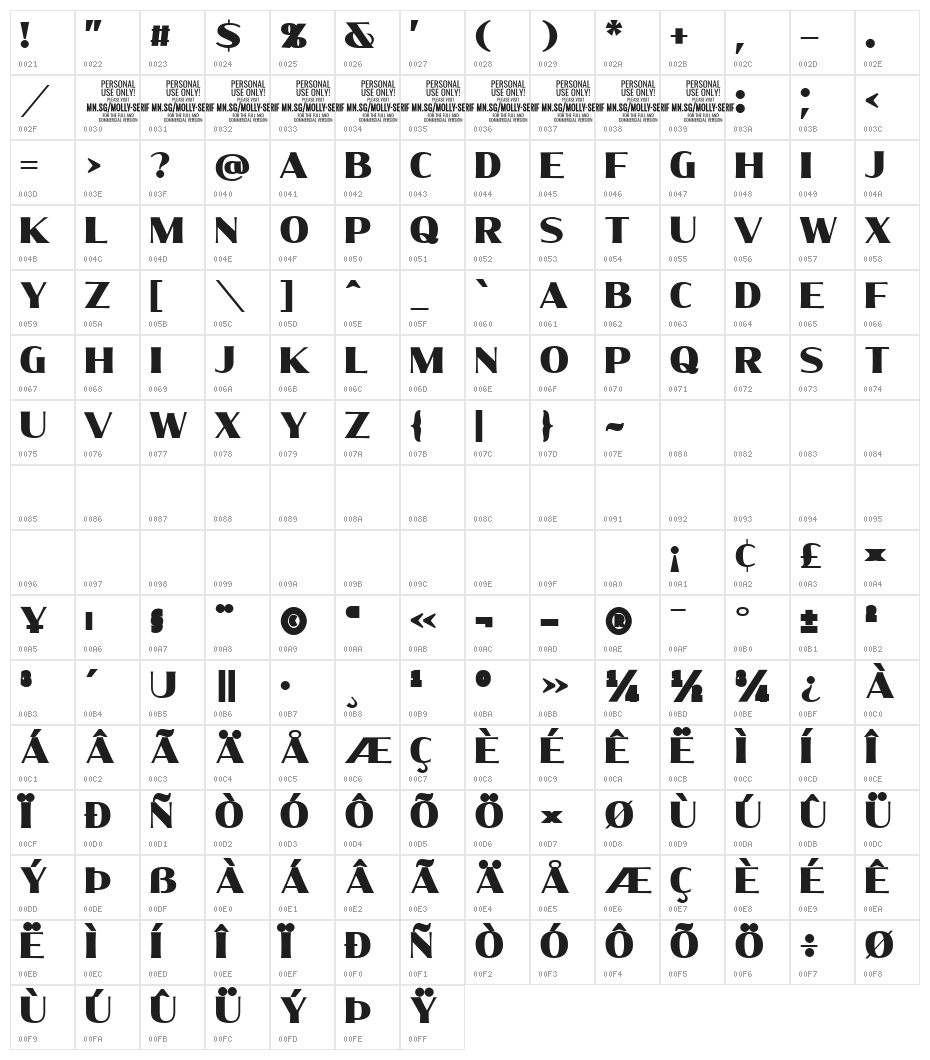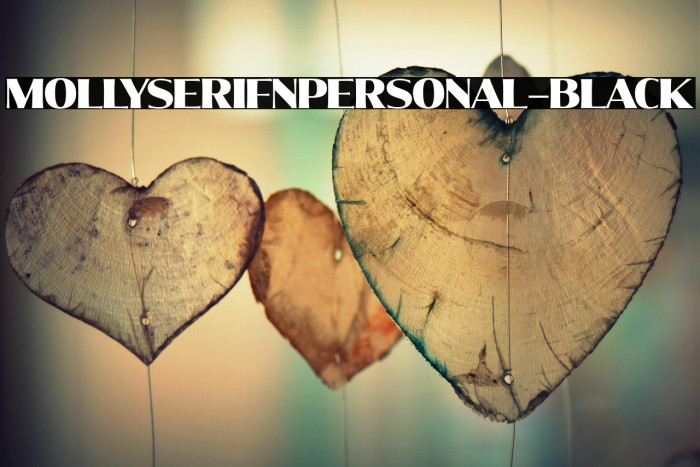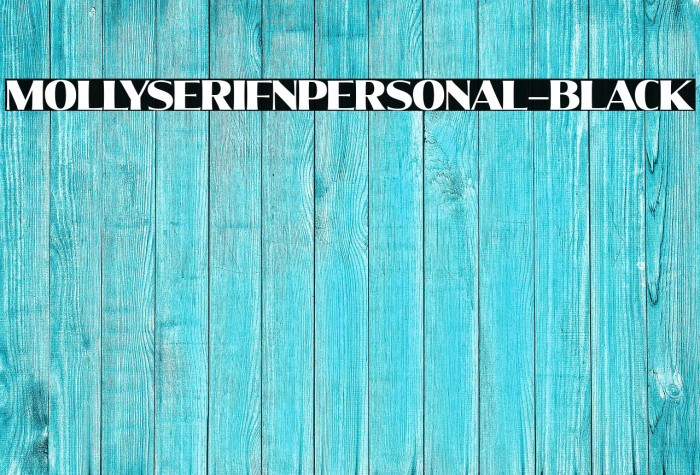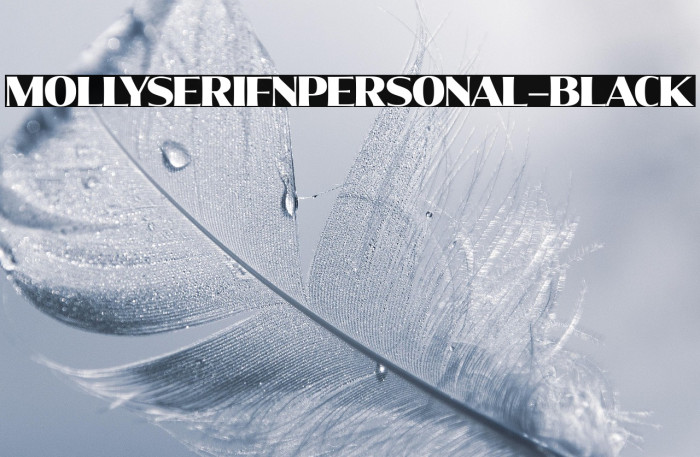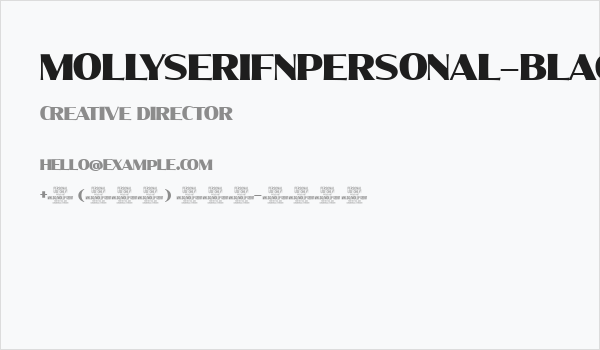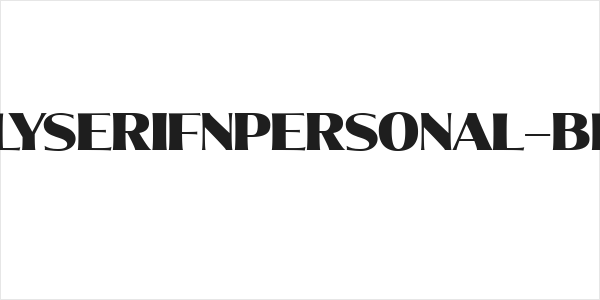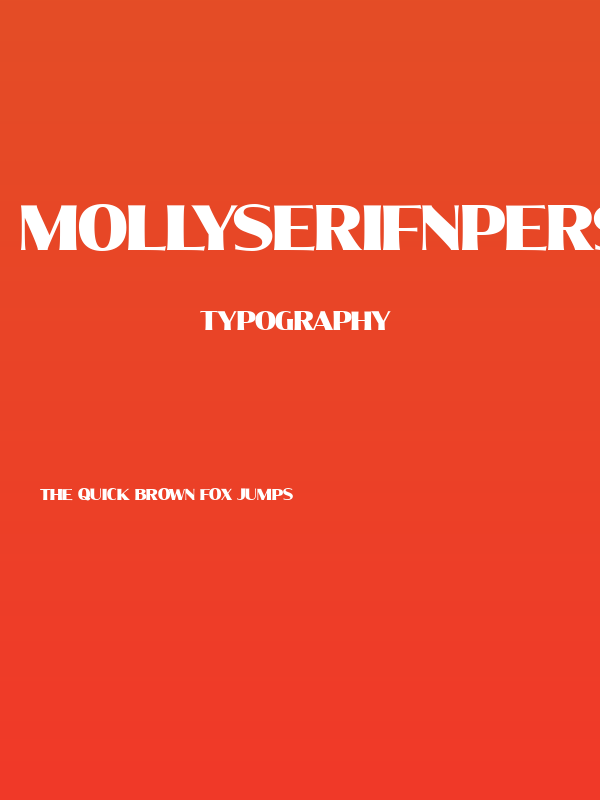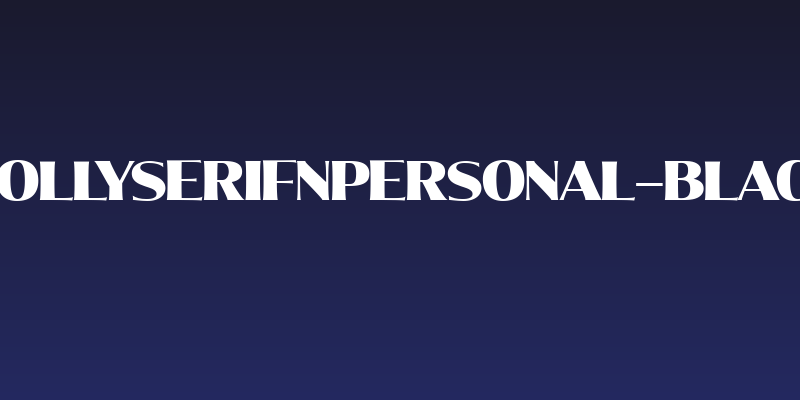
MollySerifNPERSONAL-Black Font
MollySerifNPERSONAL-Black Description
This font features a bold and dramatic style with high contrast between thick and thin strokes, giving it a striking and impactful appearance. The characters are designed with sharp, angular serifs that add a sense of elegance and sophistication. The uppercase letters are particularly prominent, making them ideal for attention-grabbing headlines or titles. The lowercase letters maintain the same boldness, ensuring consistency throughout the text. The numbers and special characters are crafted with the same attention to detail, providing a cohesive look across all elements. This font's unique style makes it suitable for projects that require a strong visual presence.